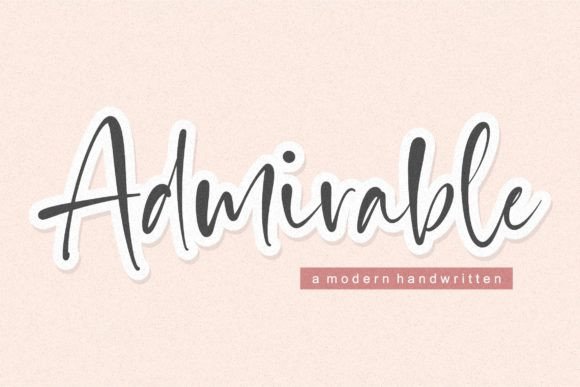
The Quest for the Perfect Font: How Admirable Became My Go-To
I still remember the frustration of working on a project, hours spent perfecting every detail, only to be held back by one thing: the font. It was a client request for a modern, elegant look, but everything I tried seemed either too bland or too over-the-top. That’s when I stumbled upon Admirable, a modern and stylish handwritten font that would change my design game forever.
First Impressions: What I Love About Admirable
Admirable is more than just a font; it’s a statement. With its fluid strokes and natural flow, it conveys a sense of individuality and modernity that’s hard to achieve with more traditional fonts. Here are a few things that immediately won me over:
• ✨ Unique Style: Admirable combines casual elegance with contemporary design, making it perfect for projects that need a bit of flair.
• ✅ Versatility: Whether it’s for branding, social media posts, or product packaging, Admirable fits right in.
• 💡 Legibility: Despite its elegant nature, Admirable remains highly legible, even at smaller sizes.
The Not-So-Perfect: A Few Quirks
No font is perfect, and Admirable has its quirks. Here are a few things to keep in mind:
• 🤔 Limited Use in Print: While Admirable shines in digital formats, it might not be the best choice for print projects that require a more formal look.
• ⚠️ Glyph Limitations: Some users might find the glyph options a bit limited for their needs, especially if they’re looking for a wide range of special characters.
The Story Behind Admirable: Designer Inspiration
Admirable was created with the goal of blending traditional elegance with modern design sensibilities. The designer sought to create a font that was not only stylish but also highly versatile, capable of being used across various platforms and design applications. The result is a font that feels both contemporary and timeless.
Author Balpirick
Is Admirable suitable for body text? While Admirable is elegant and modern, it’s best used for headings and short paragraphs. For longer body text, a more traditional font might be more readable.
Admirable has been a game-changer in my design projects, offering that perfect blend of elegance and modernity. Its versatility and unique style make it an excellent choice for designers, crafters, and creative hobbyists looking to add a personal touch to their work.